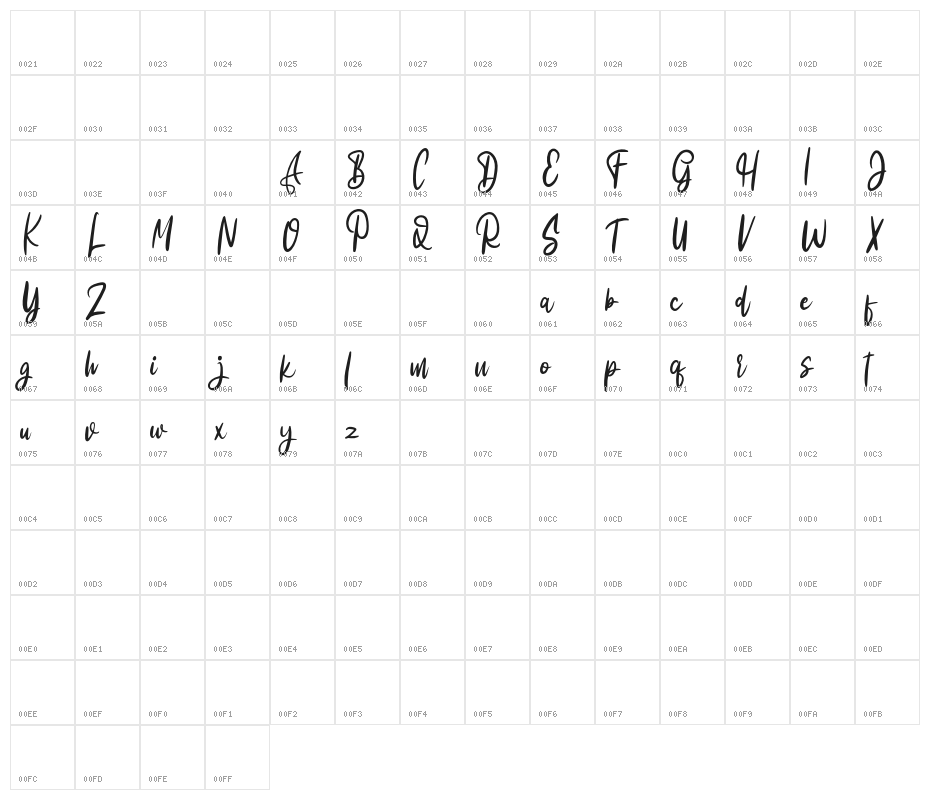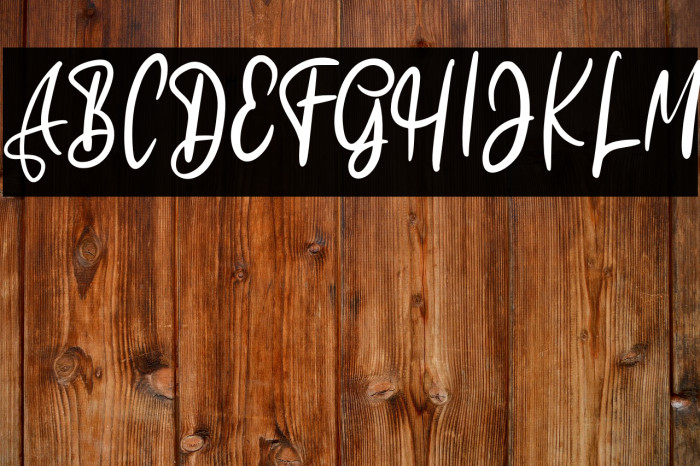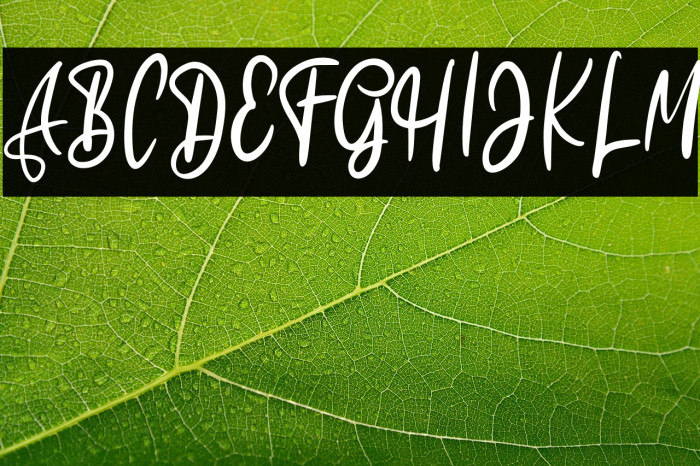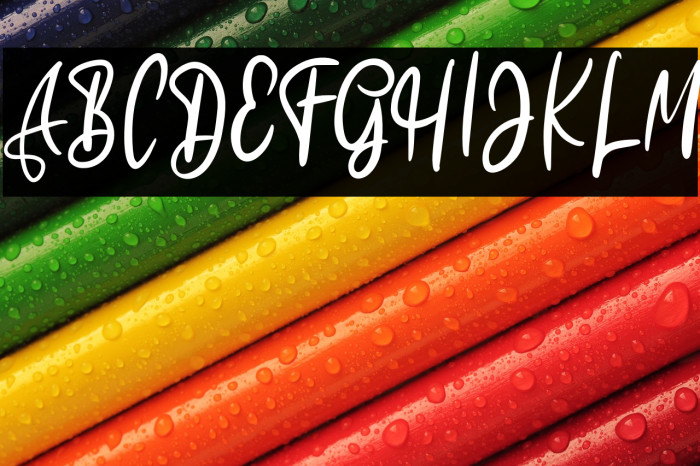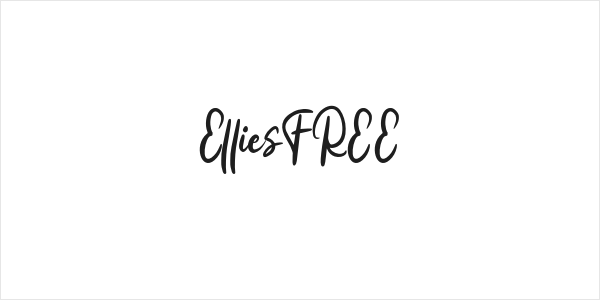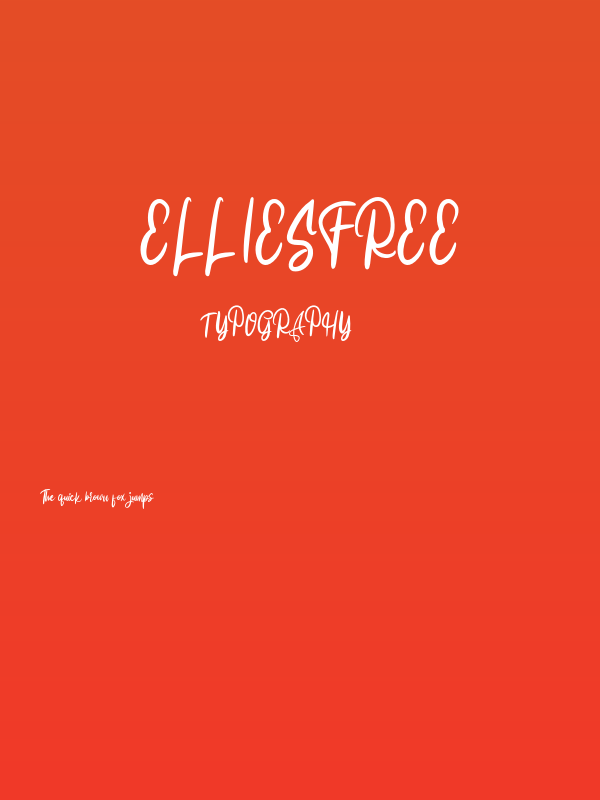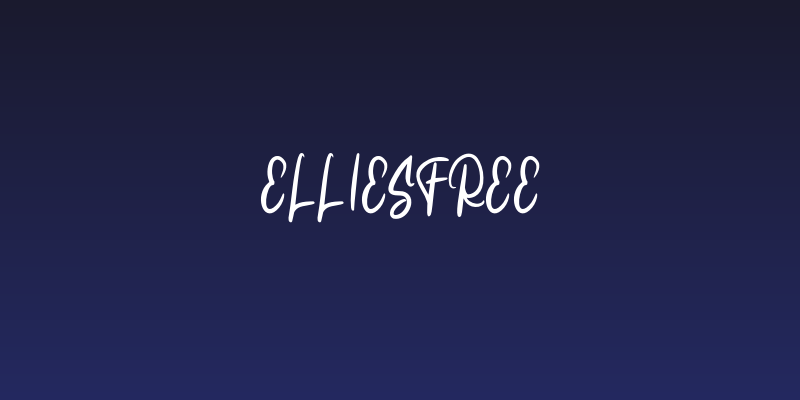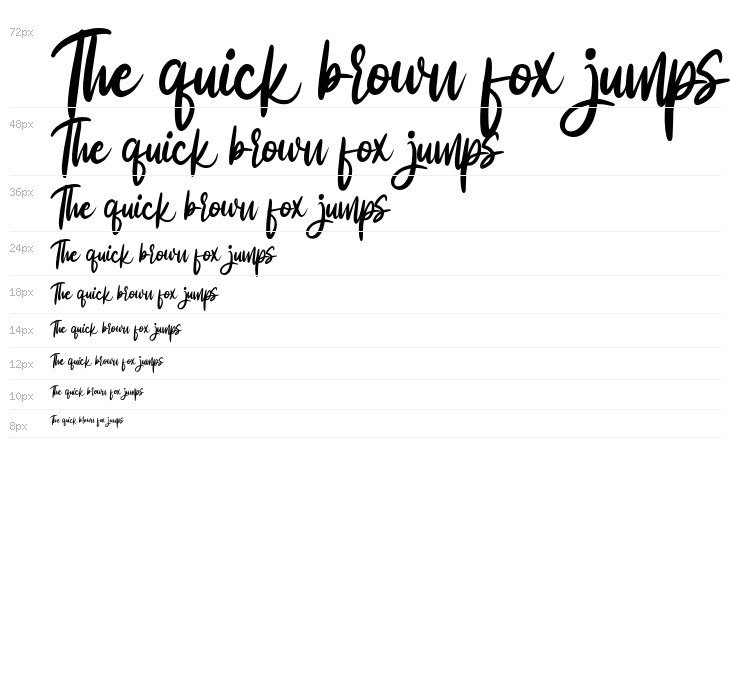
ElliesFREE Font
ElliesFREE Description
This font features a lively and energetic script style, characterized by its flowing, cursive letterforms. The uppercase letters are bold and dynamic, with a playful yet elegant flair, while the lowercase letters maintain a consistent rhythm and smooth connections. The strokes are moderately thick, providing a sense of boldness and clarity. The font's design incorporates a slight slant, enhancing its handwritten appearance. It is well-suited for creative and expressive projects, offering a personal touch that is both stylish and approachable.